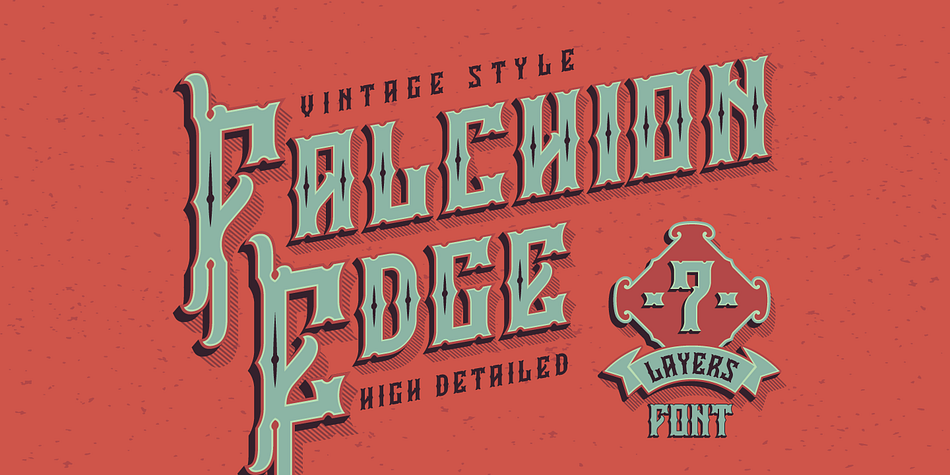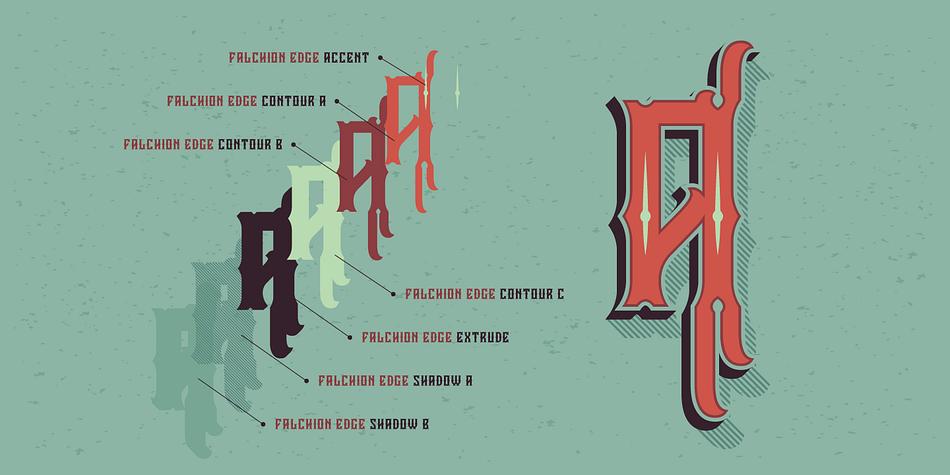
Falchion Edge
Designed by Gleb Guralnyk, Falchion Edge is a historical font family. This typeface has eight styles and was published by Gleb Guralnyk.
Hi! Presenting another one vintage style typeface “Falchion Edge”. It has lots of details and consists of different font layers. Also it includes a file with merged layers into one font.